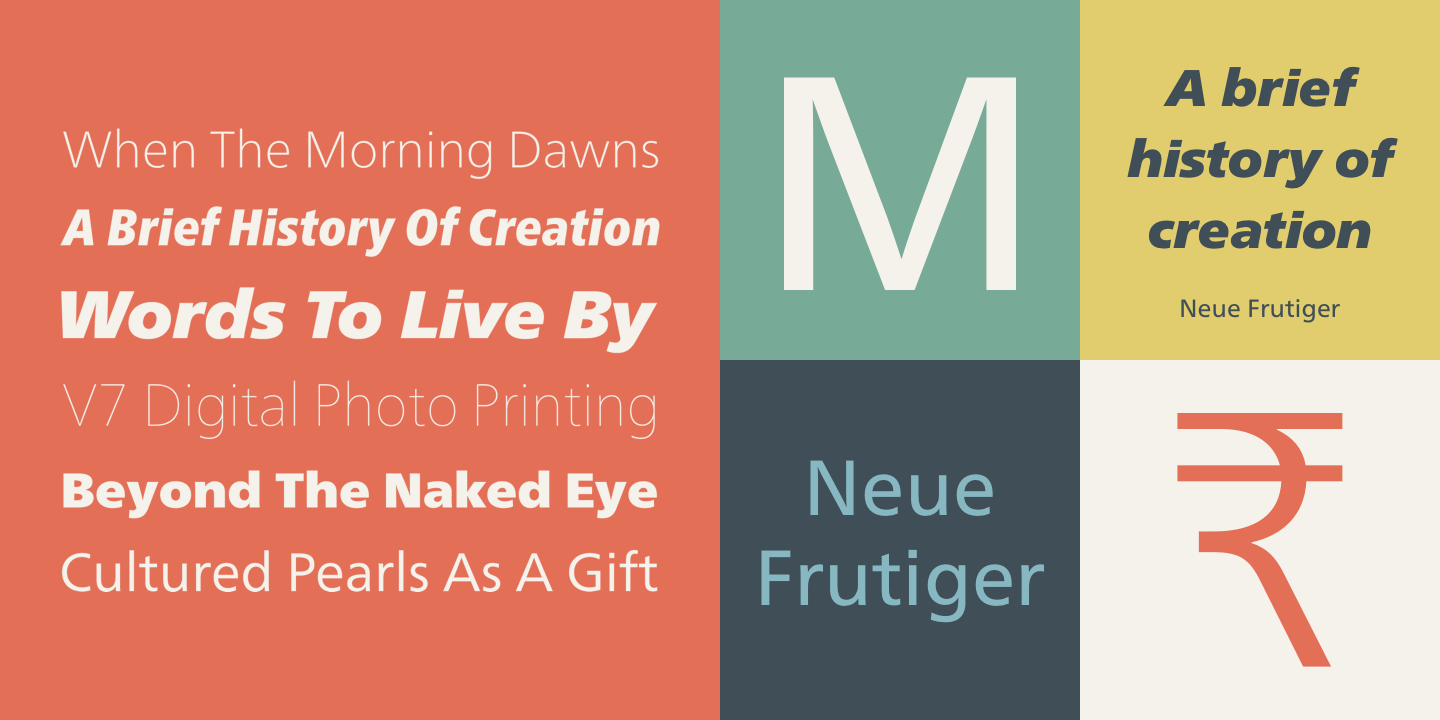
Neue Frutiger Font is perfect for contemporary projects including modern wayfinding systems, digital interface designs, corporate communication materials, architectural signage solutions, transportation information graphics, healthcare facility navigation, educational institution branding, and progressive public service applications. This refined typeface brings enhanced humanist clarity and digital optimization to any design project.
What makes Neue Frutiger Font exciting is its masterful refinement of Adrian Frutiger's legendary humanist principles with contemporary digital enhancements and expanded character coverage. The meticulously updated letterforms feature improved optical clarity and enhanced spacing that maintain the original's exceptional legibility while adding modern sophistication. This font delivers the perfect evolution of Swiss humanist design that meets today's demanding digital and print requirements.
The Neue Frutiger Font family typically includes comprehensive weight ranges from ultra-light to ultra-black with corresponding italic styles, complete international character sets, numerals, punctuation, and extensive symbol libraries. The design incorporates refined digital optimization and advanced OpenType features that enhance performance across all media. Premium versions include comprehensive language support and specialized characters for global wayfinding applications.
Whether you're designing for modern institutions, digital platforms, or international organizations, Neue Frutiger Font Free Download delivers the proven excellence that has guided millions worldwide for decades. Its humanist character makes it ideal for critical communications and user interfaces that must perform flawlessly across all contexts. The font's legendary heritage ensures it communicates trust and clarity, making it perfect for any project requiring the authoritative aesthetic of Swiss design excellence and humanist typography perfection.